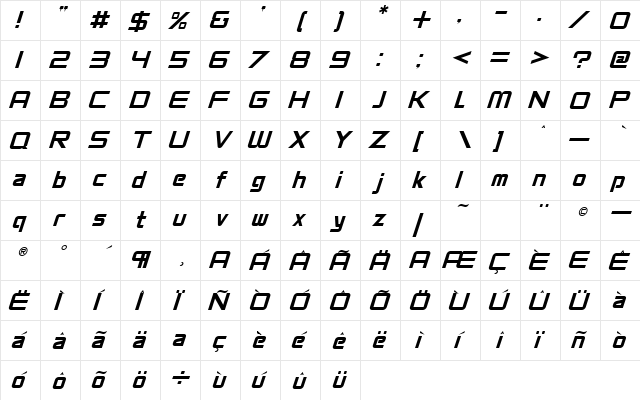
VentureRegularOblique Regular
Design Context for VentureRegularOblique Typeface
VentureRegularOblique offers clean, dependable letterforms without strong stylistic allegiance, making it a practical choice for designers who need flexibility. The slanted form adds forward momentum and visual energy.
Pro Tip: Try VentureRegularOblique for annotation and caption copy alongside an upright companion — the contrast in angle creates a dynamic but ordered typographic system.